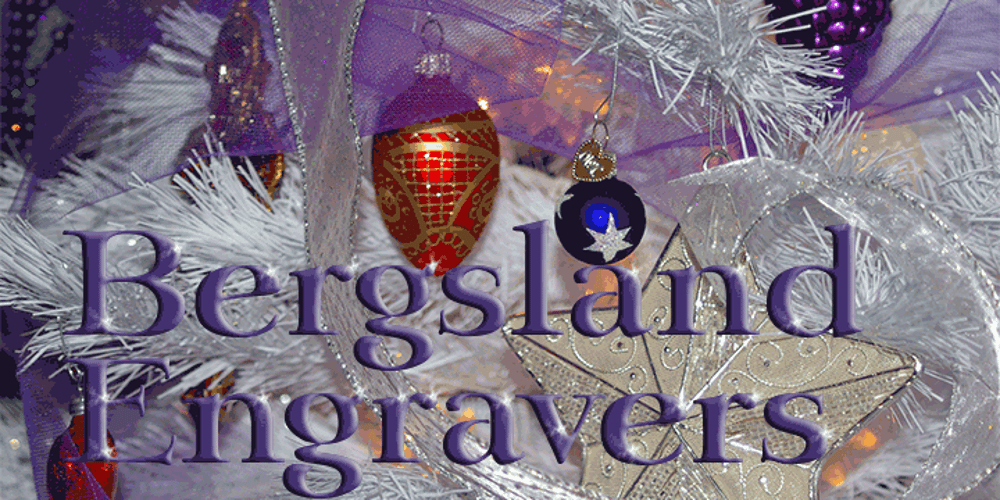
Bergsland Engravers Pro Font Family was designed by David Bergsland and published by Hackberry Font Foundry. Bergsland Engravers Pro contains 1 styles and family package options. This is a display version of the Bergsland Pro serif font family called Bergsland Engravers Pro. The stroke is highly modulated. The width is very wide. This an attempt at a fully useful black serif display font. It has many OpenType features and 474 characters: Caps, lower case, small caps, old style figures, numerators, denominators, accented characters, ligatures, alternative forms, and so on.